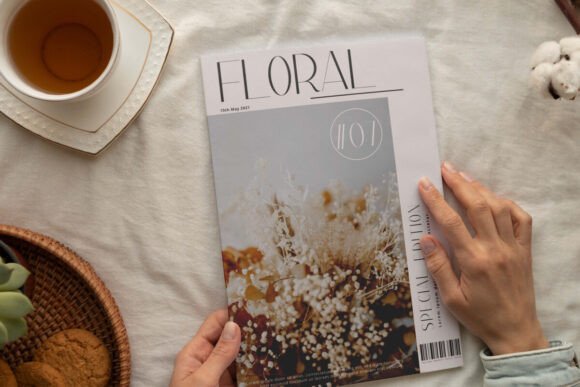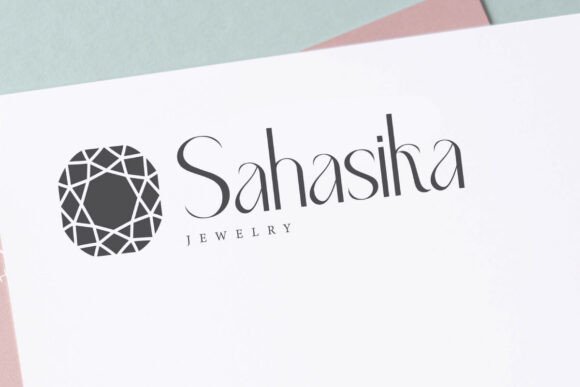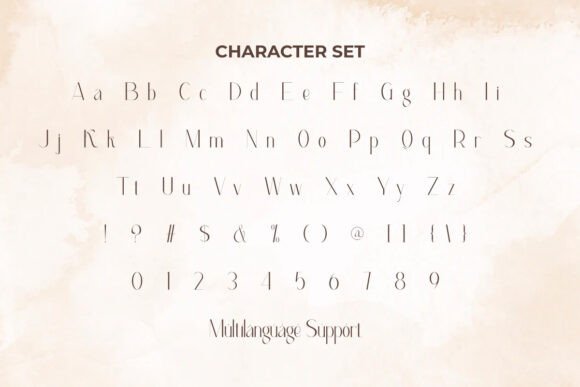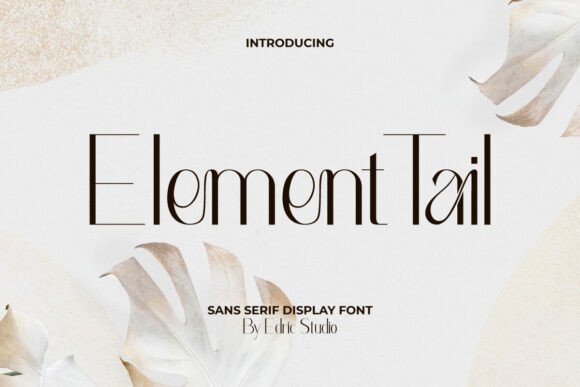
Introduction to Element Tail Font
Element Tail Font is a stunning display font with beautiful ligature characters.
It’s charming because when put together it creates a shape of letters that bends perfectly because it also looks thin and elegant, it will be suitable for any industry, such as accessories, architecture, boutique, cafΓ©, entertainment, fashion design, florist, handicraft, jewelry, perfume brand, photography, printing, publishing, restaurant, skincare, spa salon, wedding planner, writer, and many more .